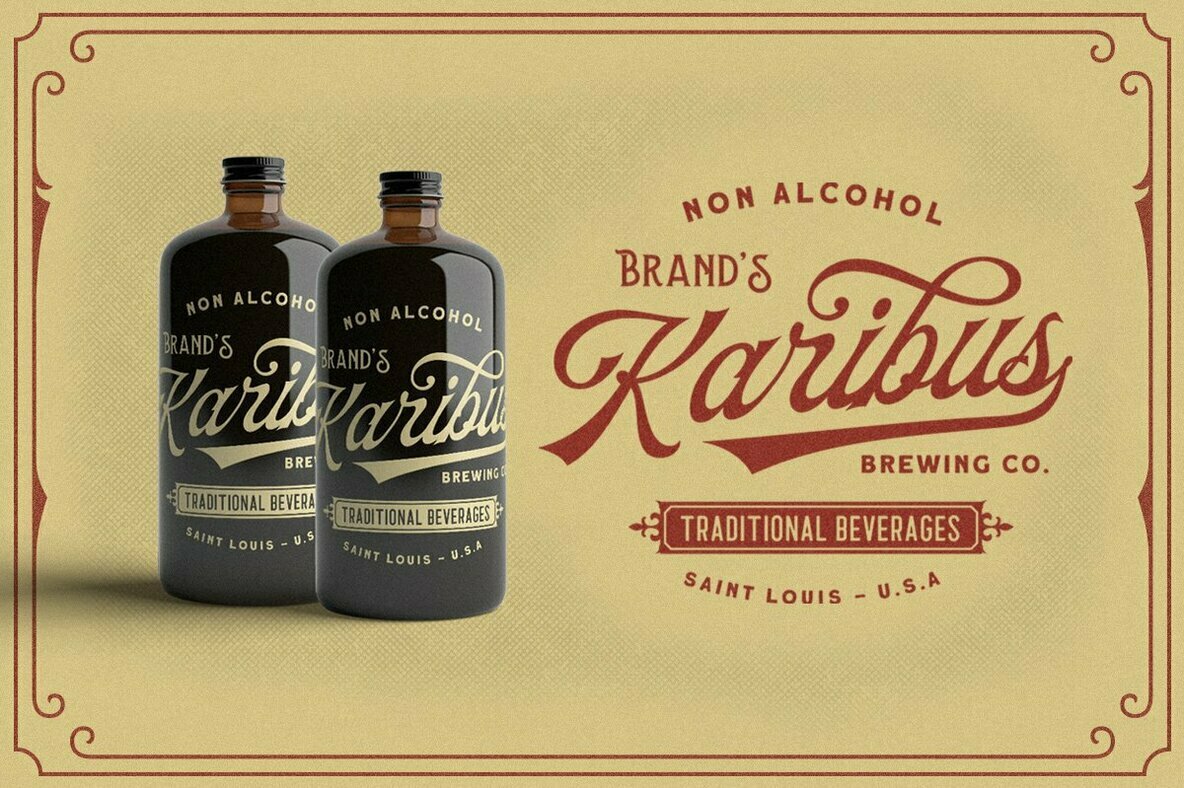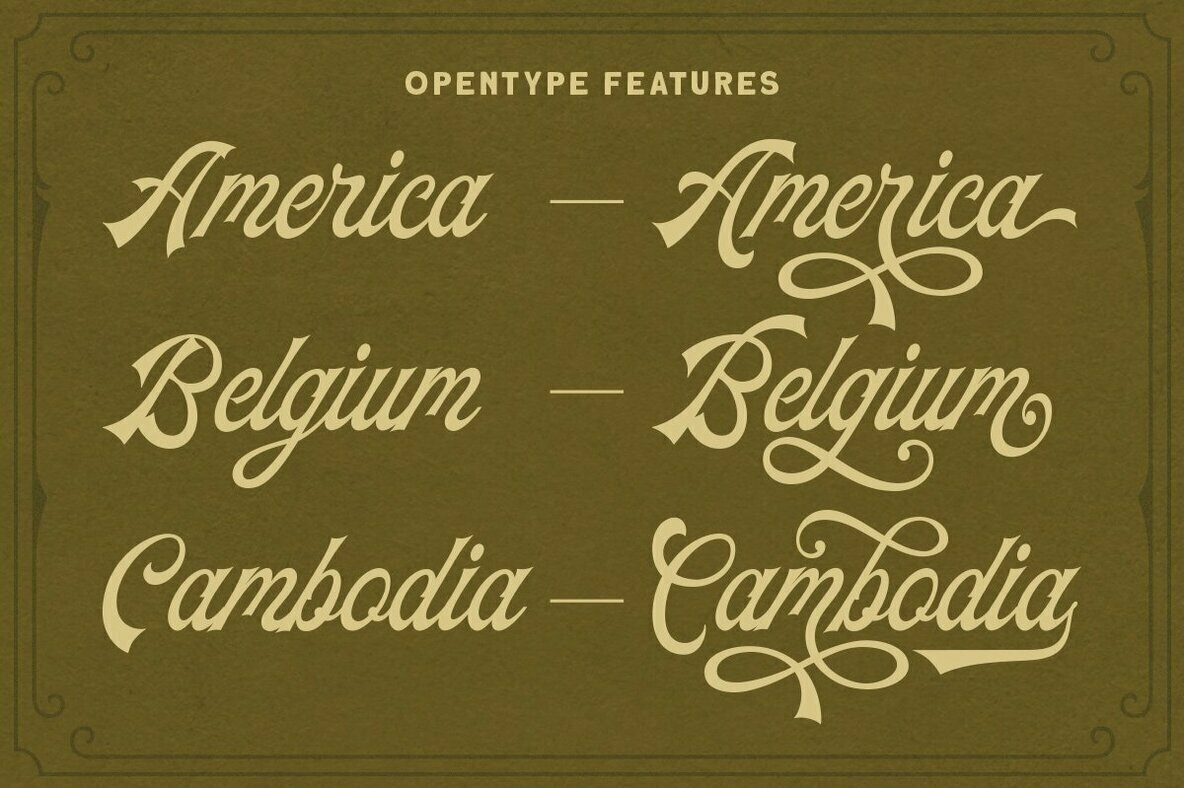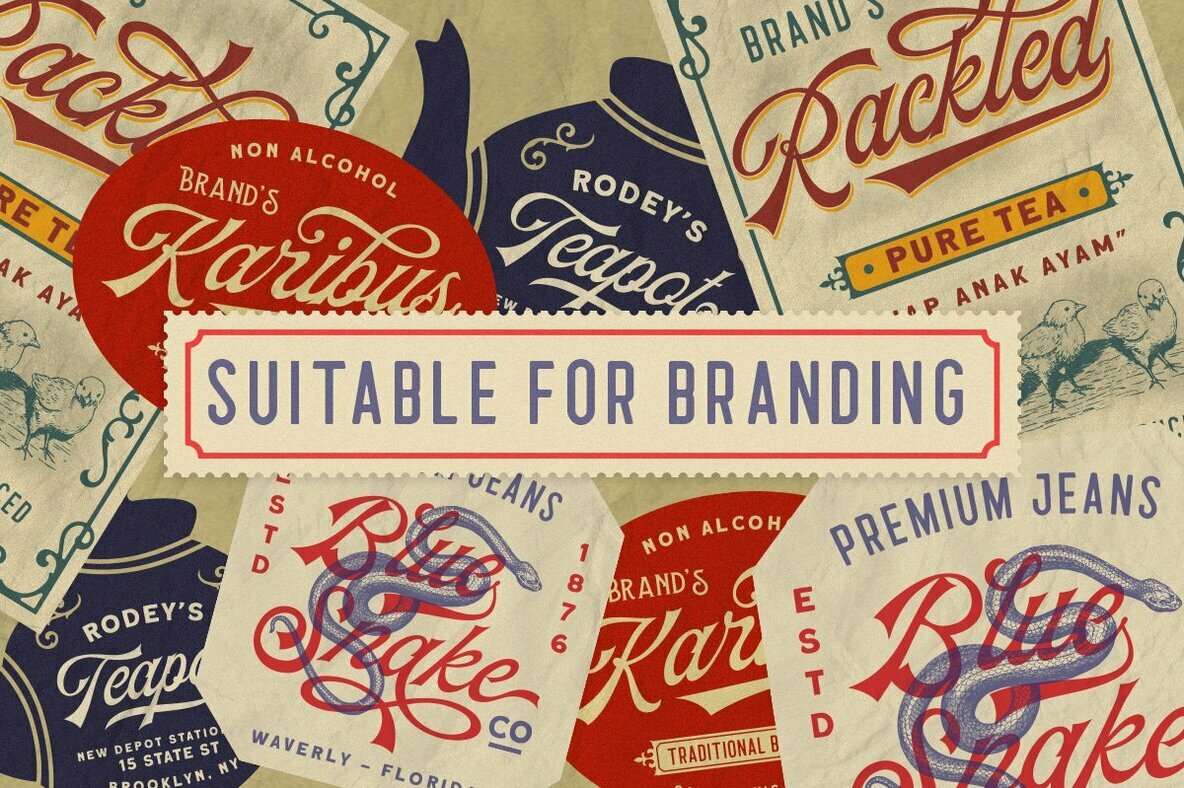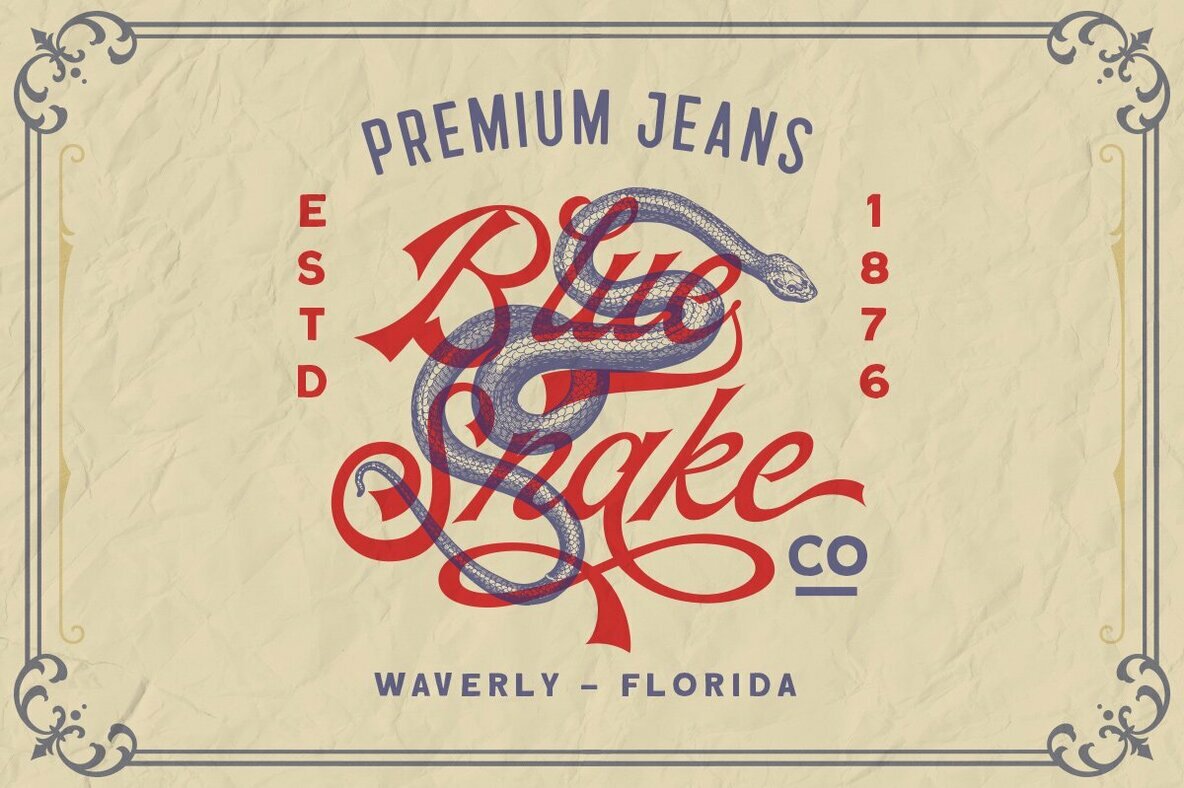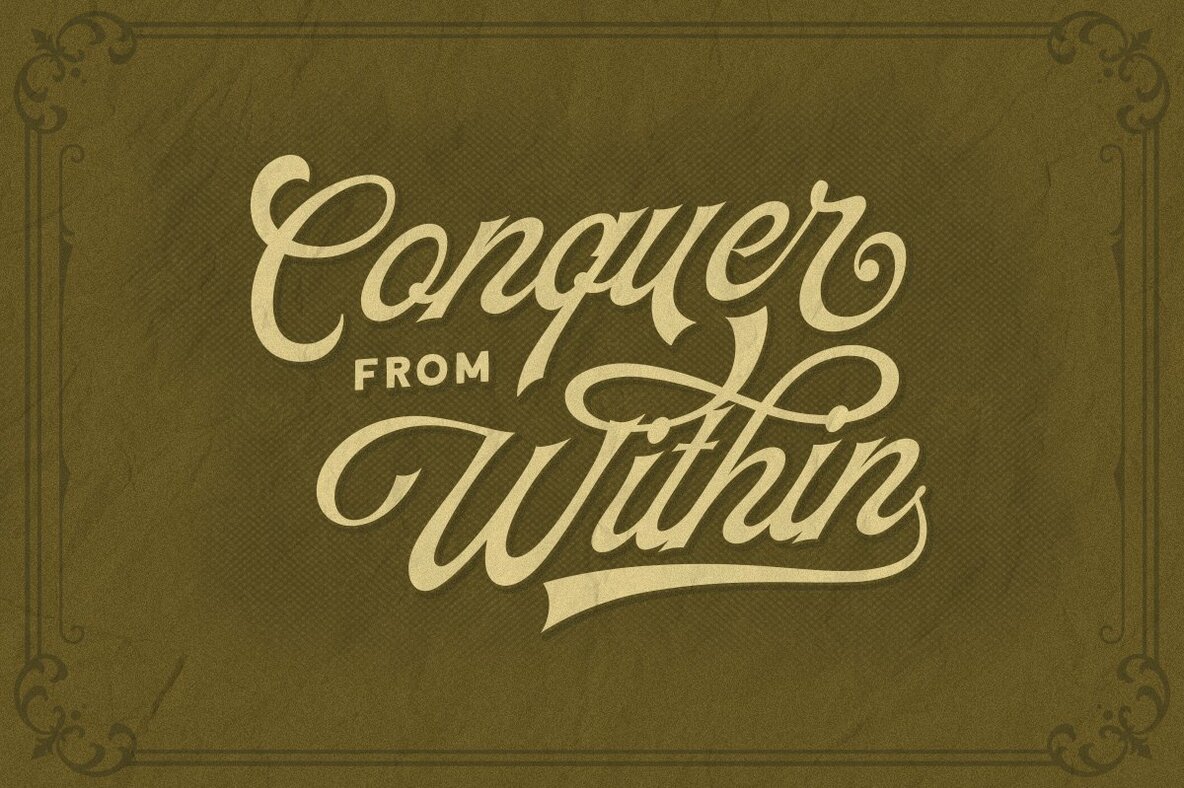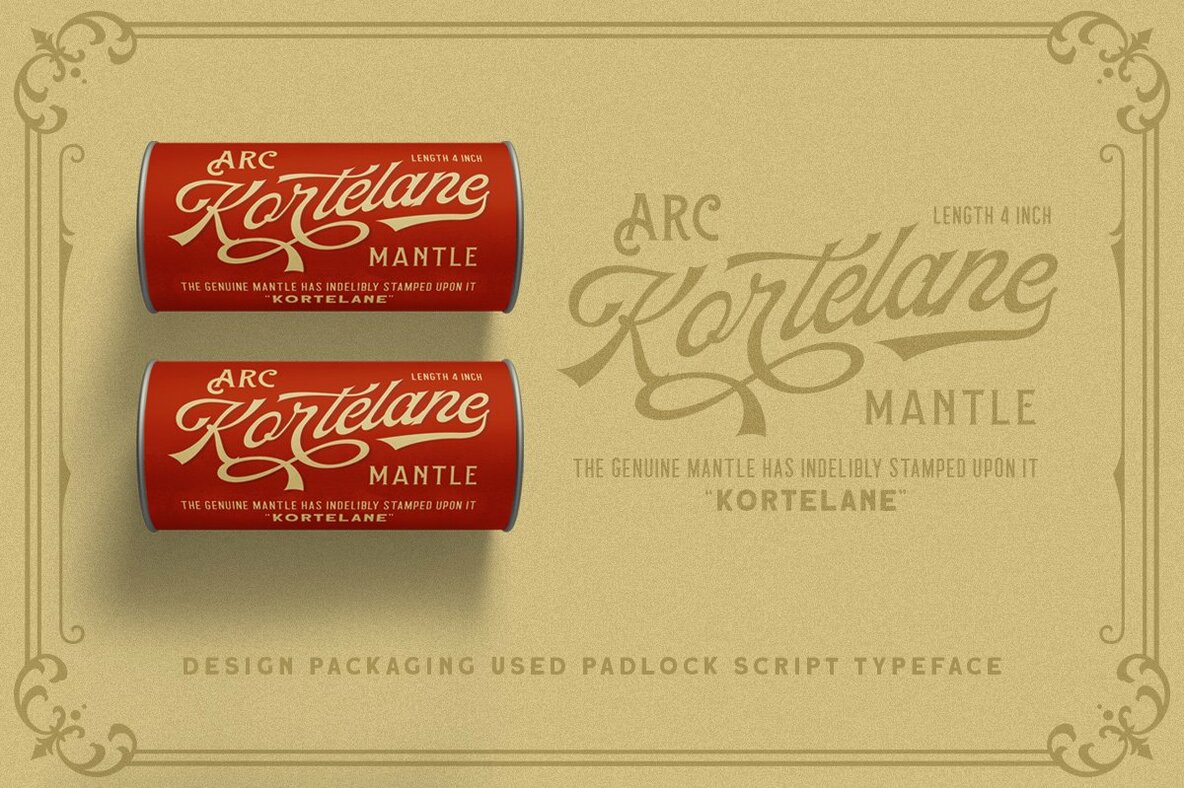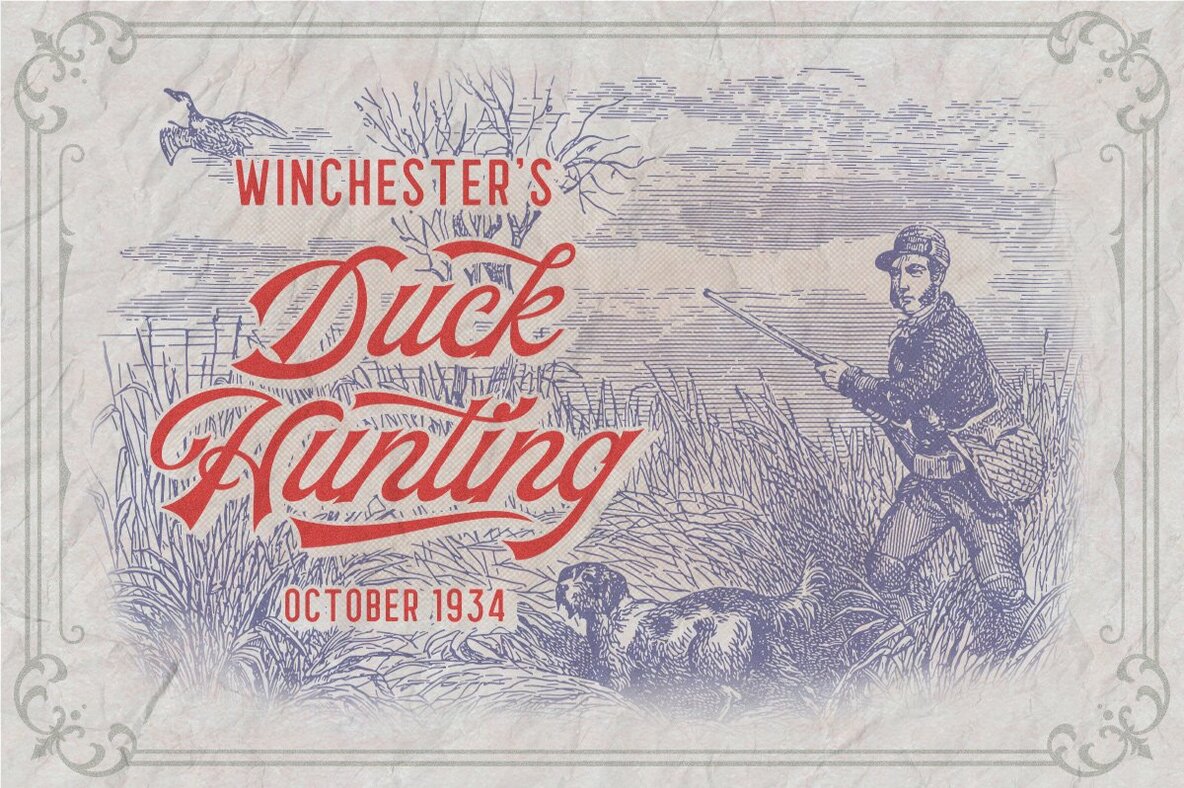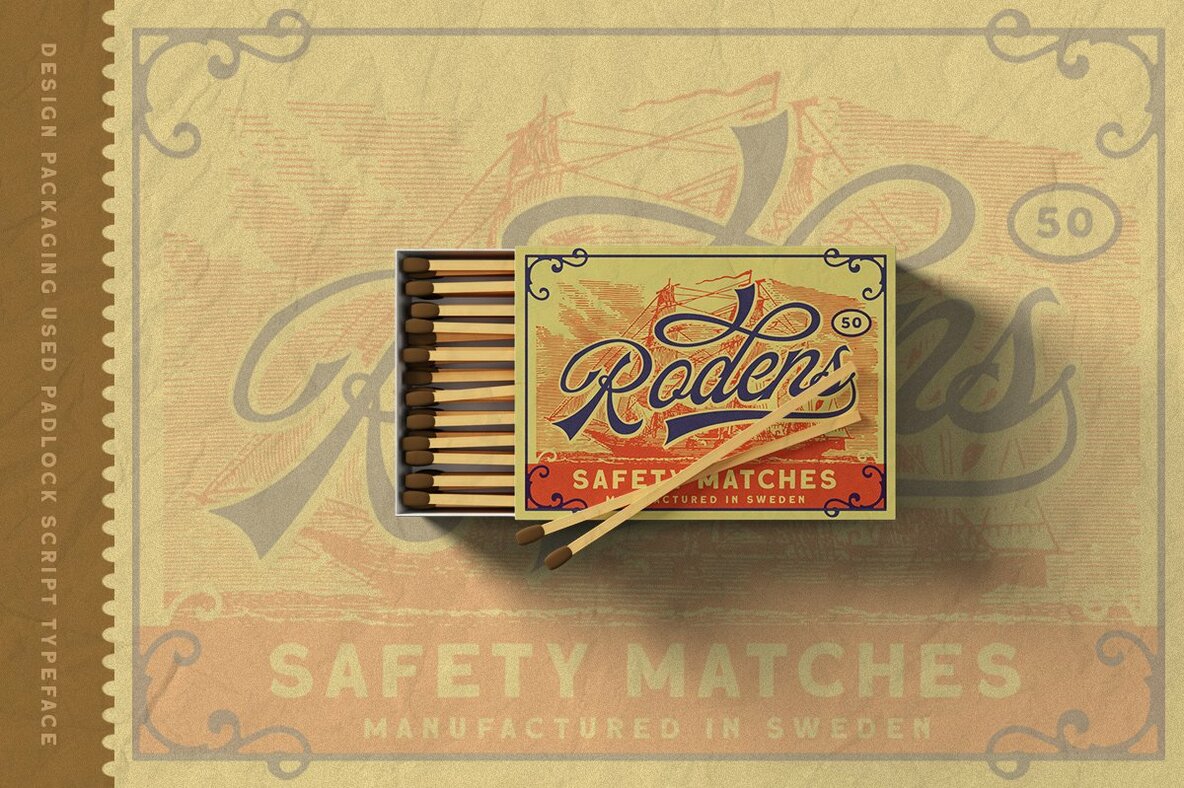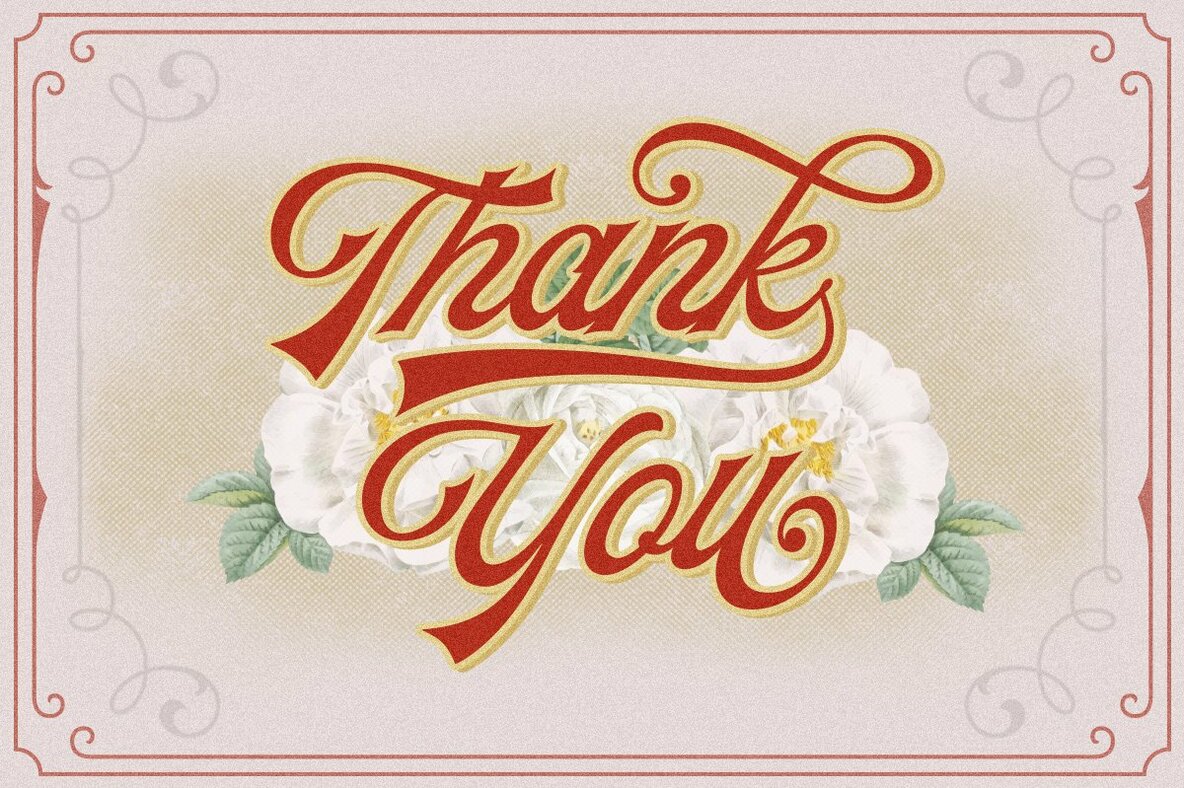
The Padlock Font
Padlock Script
Embrace the past with The Padlock, a vintage script that exudes nostalgic charm. Perfectly suited for projects with a retro or vintage theme, this typeface brings an authentic feel to your design work. Its unique swashes enhance its individuality, allowing you to craft beautiful vintage lettering with ease. The Padlock is ideal for a variety of applications, lending elegance to logos, invitations, labels, magazines, books, greeting and wedding cards, packaging, fashion, make-up branding, stationery, novels, or any advertising endeavor. For optimal use, we recommend programs that support OpenType features and Glyphs panels, such as Adobe's suite of applications and Corel Draw, providing full access to all available glyph variations.The Padlock: A Vintage Script with Nostalgic Charm